17 Best Blackletter Fonts to Give Your Designs a Bold Gothic Edge
There’s something undeniably magnetic about Blackletter Fonts. They don’t just sit on a page; they command it. Whether it’s the dark, brooding energy of a metal album cover or the refined, “old-money” elegance of a Victorian label, these typefaces carry a weight of history and character that modern sans-serifs simply can’t touch.
If you’ve ever felt like your design was missing that “soul” or a bit of raw, rebellious edge, you’ve come to the right place. In this roundup, I’ve hand-picked a collection of the most striking Blackletter Fonts—from razor-sharp tattoo scripts to majestic medieval displays. Each one has its own personality, ready to transform your logos, apparel, and branding into something truly legendary.
Let’s dive into the world of ornate flourishes and bold strokes to find the perfect match for your next creative masterpiece.
1. Beardsons Blackletter Font
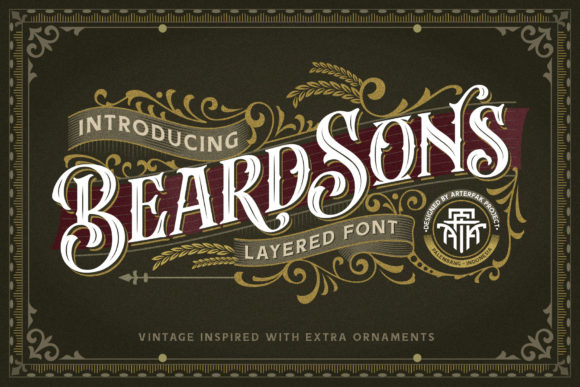
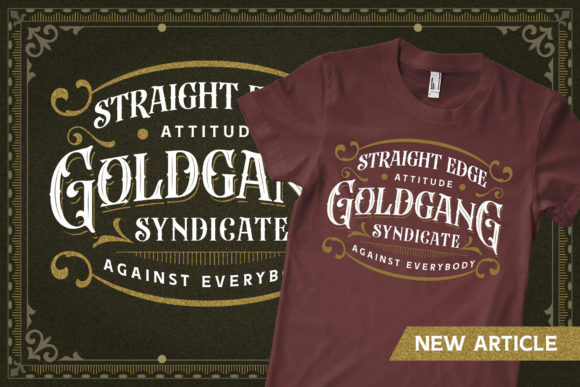
When I first came across Beardsons, it felt like finding a rare vinyl record in a dusty shop—it has that authentic, old-school soul. If you’re hunting for Blackletter Fonts that don’t just sit on the page but actually tell a story, this one is a gem. It’s got all the sharp, dramatic flair of traditional Gothic script but polished with a clean, vintage energy that feels surprisingly fresh.
Best Used For: I’d personally use this for branding that needs some “edge”—think craft beer labels, tattoo studio logos, or bold apparel prints. It’s a powerhouse for headlines where you want to grab attention immediately.
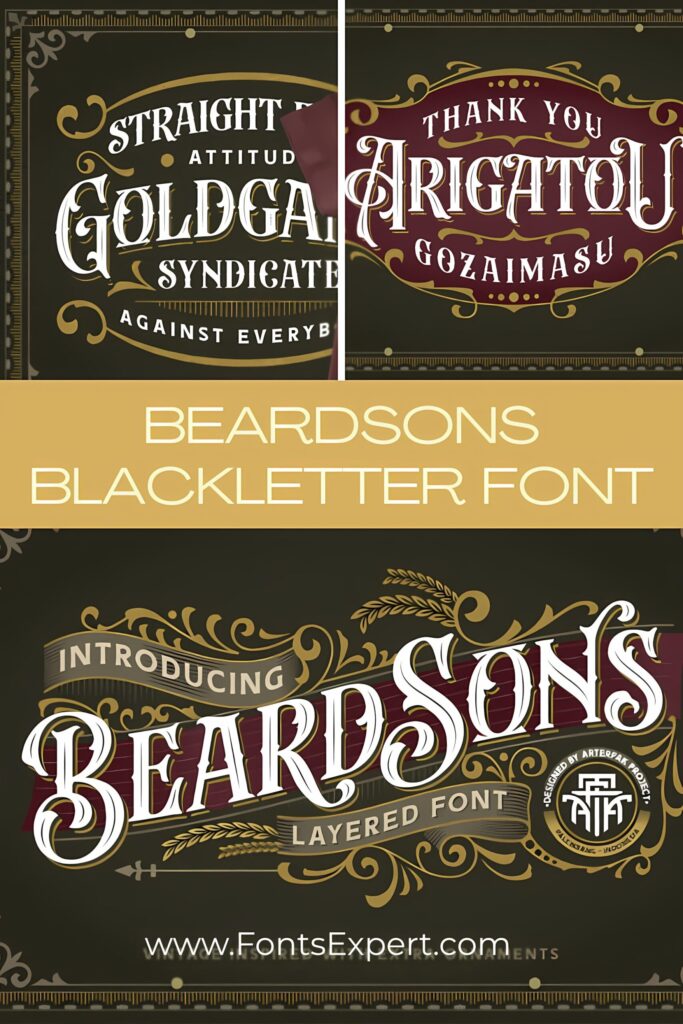
Why It Stands Out:
- Highly Legible: Unlike some dense Blackletter Fonts, Beardsons keeps its characters clear and recognizable.
- Distinctive Personality: It strikes a perfect chord between medieval heritage and 19th-century letterpress aesthetics.
If you want your project to radiate a “handmade” premium feel, Beardsons is definitely the heavy hitter you need in your toolkit.
2. Black Ink Blackletter Font
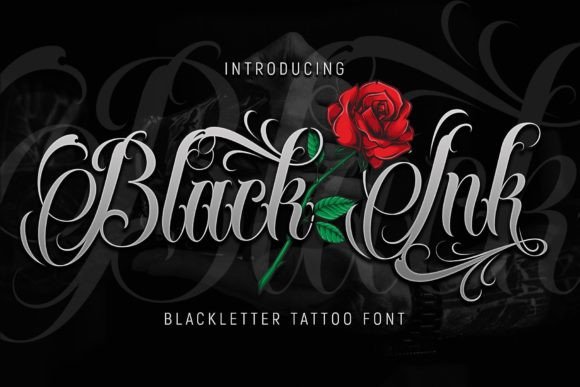
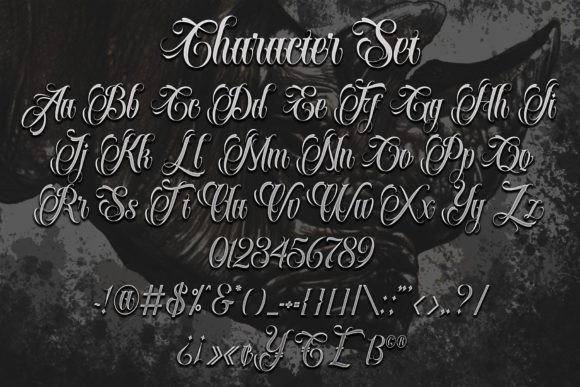
If you’re looking for a font that feels like it was etched straight onto skin, Black Ink is your go-to. I love how it takes the heavy, historical weight of traditional Blackletter Fonts and leans into a sharp, contemporary tattoo aesthetic. It’s not just a typeface; it’s an attitude. It feels raw, urban, and incredibly intentional.
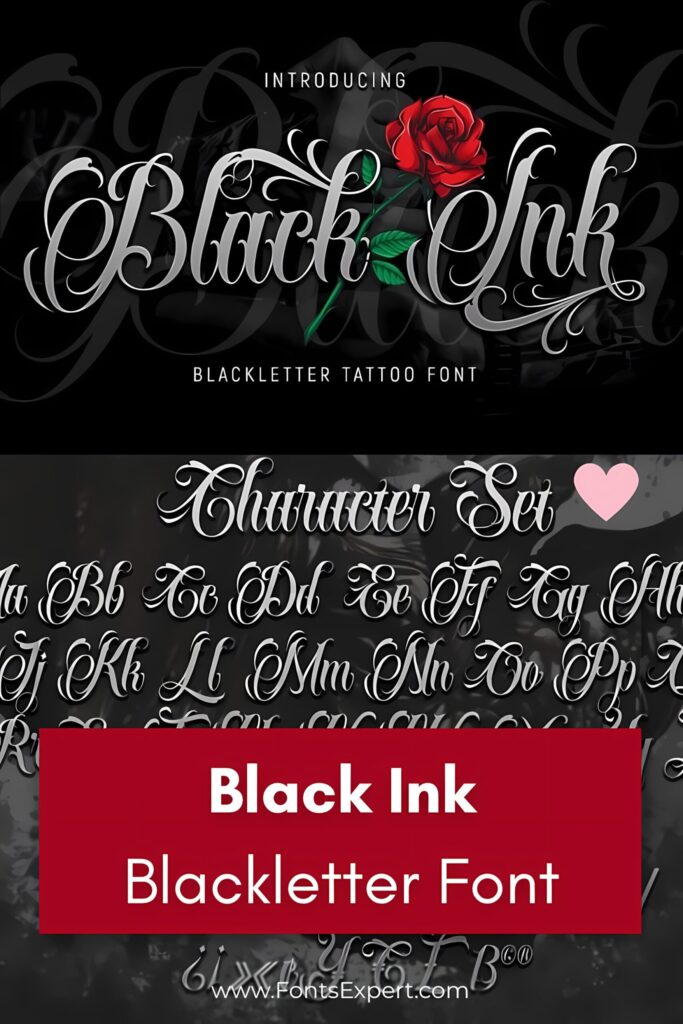
Where it shines: It’s a natural fit for brand identities that aren’t afraid to be loud. Think edgy streetwear logos, gig posters, or club flyers. If you’re designing a t-shirt and want that “custom ink” look without hiring a calligrapher, this is it.
Why I’d choose it:
- Contemporary Flow: It avoids looking “dusty” or outdated by using cleaner lines and a modern rhythm.
- Confidence: It has a bold presence that anchors a design, making it easy to build a visual identity around it.
Adding Black Ink to your collection of Blackletter Fonts gives you that perfect bridge between old-world craftsmanship and modern street style.
3. Old English Blackletter Font
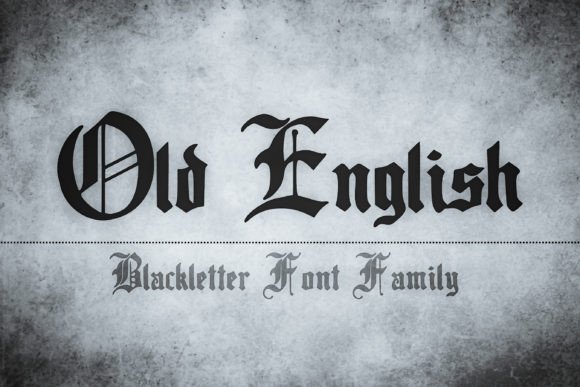
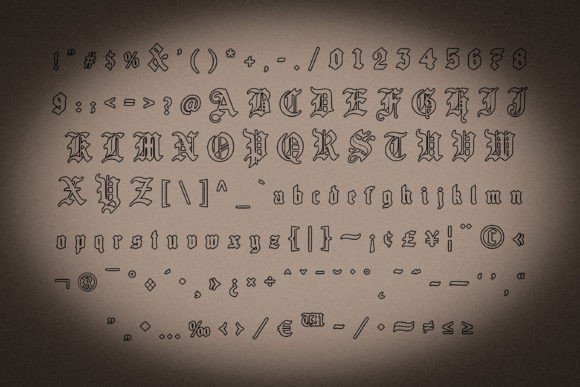
There is something incredibly nostalgic about Old English. It’s the kind of font that instantly transports me to a world of wax seals, ancient manuscripts, and iron-wrought gates. Among all Blackletter Fonts, this one is the undisputed classic. It carries a certain “splendid antique” weight that feels prestigious and deeply rooted in history.
Perfect For: I always reach for this when a project needs to feel established or ceremonial. It’s the gold standard for diplomas, certificate headers, or historical-themed event posters. If you’re designing labels for something “aged” or traditional—like a classic spirit or a heritage brand—it’s a perfect match.
The Benefits:
- Instant Recognition: It’s arguably the most iconic style in the world of Blackletter Fonts.
- Ornate Detail: The intricate, decorative flourishes add a layer of sophistication that simple fonts just can’t mimic.
Using Old English is a statement. It’s about leaning into a medieval vibe with confidence and giving your design an unmistakable sense of authority.
4. Highborne Blackletter Font
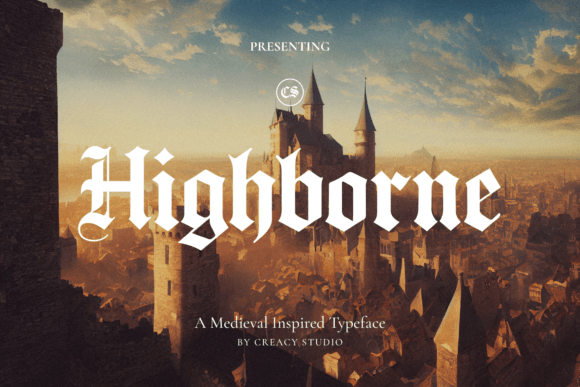
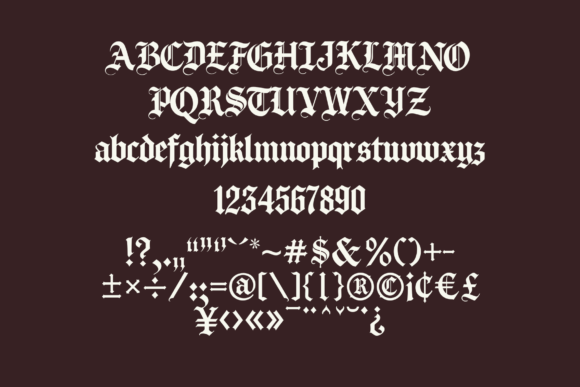
When I first laid eyes on Highborne, it felt less like looking at a font and more like stepping into a medieval epic. It’s one of those Blackletter Fonts that truly breathes—carrying the weight of ancient legends and the mystery of candle-lit manuscripts. It’s got that “mighty character” that makes you stop and look twice, blending old-world enchantment with a sharp, modern edge.
Where it excels:
If you’re working on a dark fantasy book cover, a metal album, or a brand that needs to feel legendary, Highborne is your secret weapon. It’s fantastic for cinematic quotes or apparel where you want that “heraldic” authority.
Why I’m a fan:
- Intricate Detail: The ornate contours and dramatic contrast are just stunning; they give your work a high-end, bespoke feel.